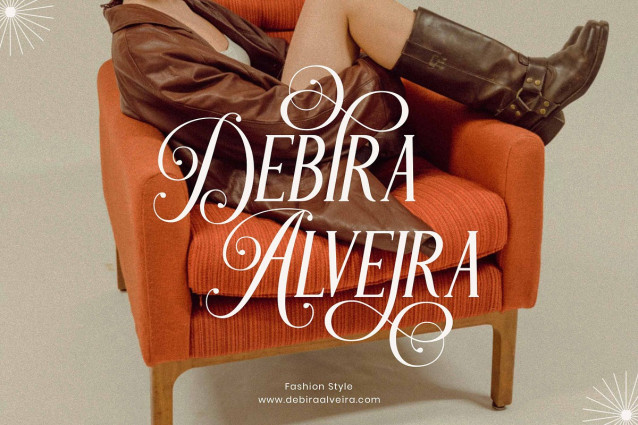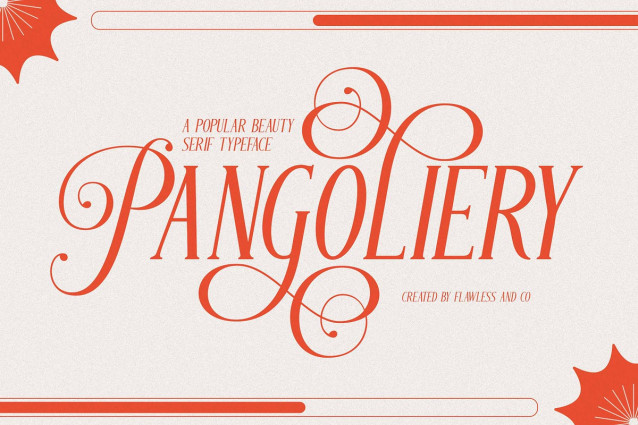
Pangoliery Font
Pangoliery Font is a refined serif typeface that captures the essence of beauty, elegance, and modern femininity. Inspired by classic typography with a fresh, contemporary twist, Pangoliery features soft curves, stylish contrast, and graceful proportions that bring a polished, editorial look to any design. Perfect for branding, beauty packaging, social media graphics, magazine titles, and elegant logos, Pangoliery adds a sophisticated yet approachable feel to your layouts. Each letterform is thoughtfully designed to balance timeless style with expressive character, making your typography feel both luxurious and current. The font includes elegant alternates and custom ligatures, offering creative versatility and refined detail to elevate your compositions.